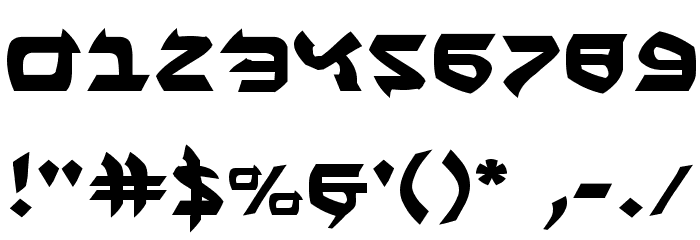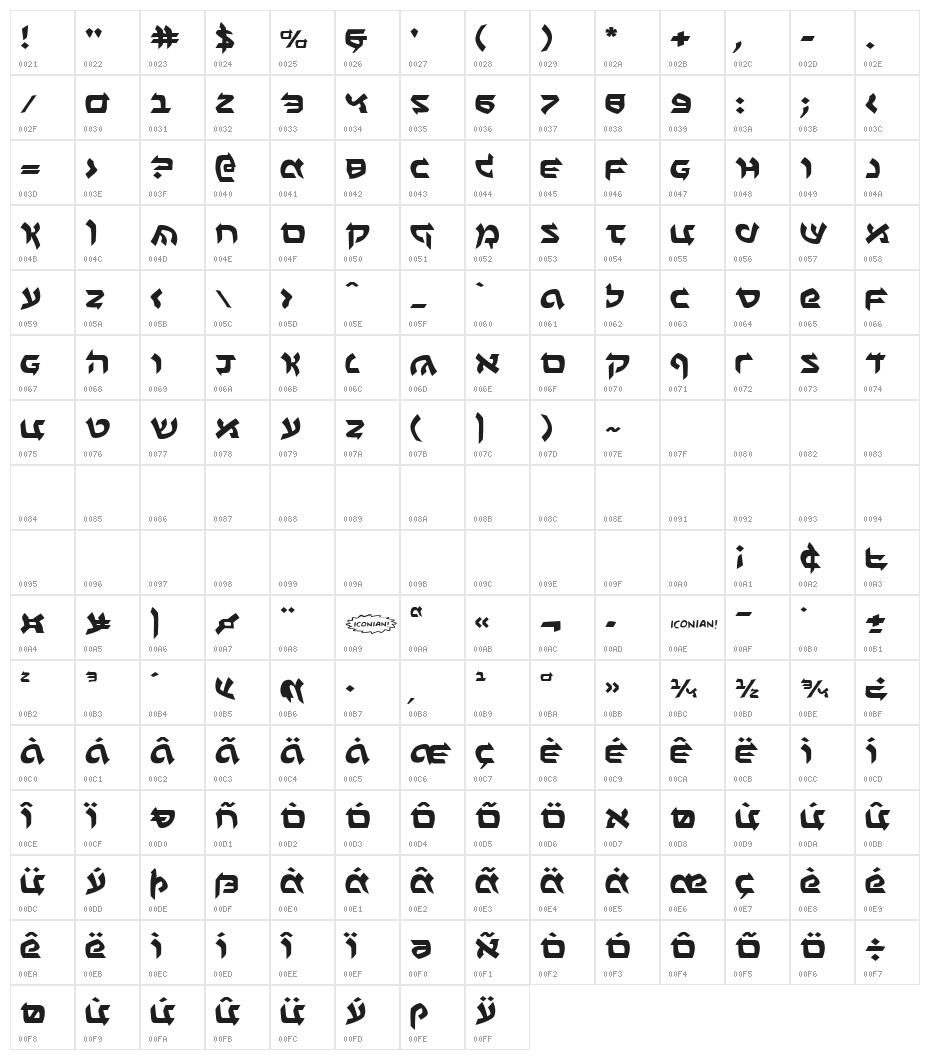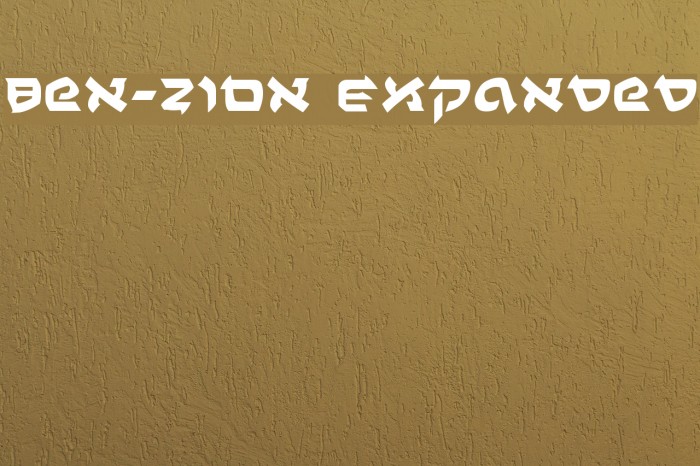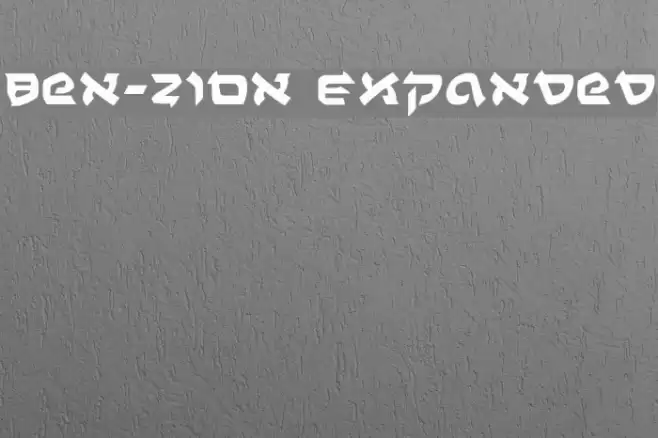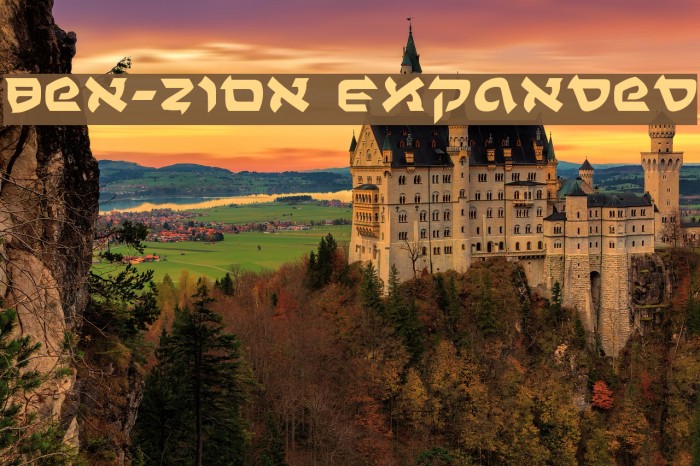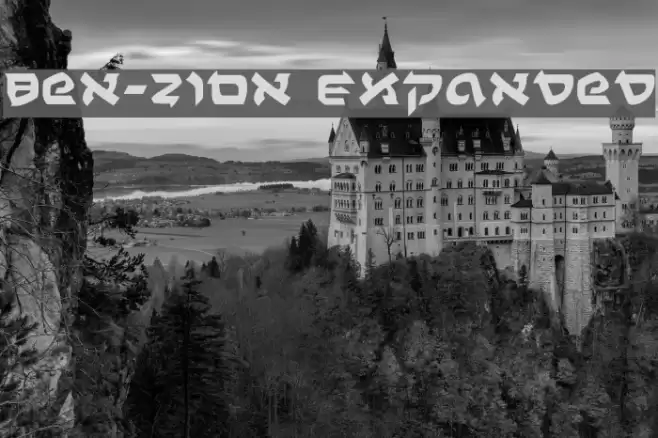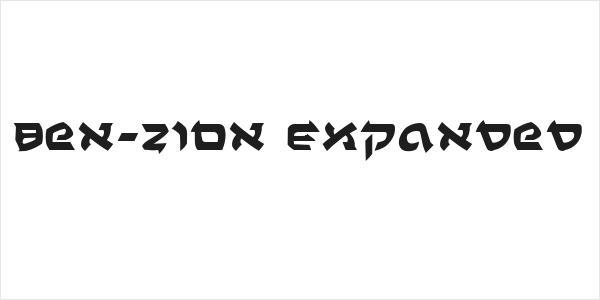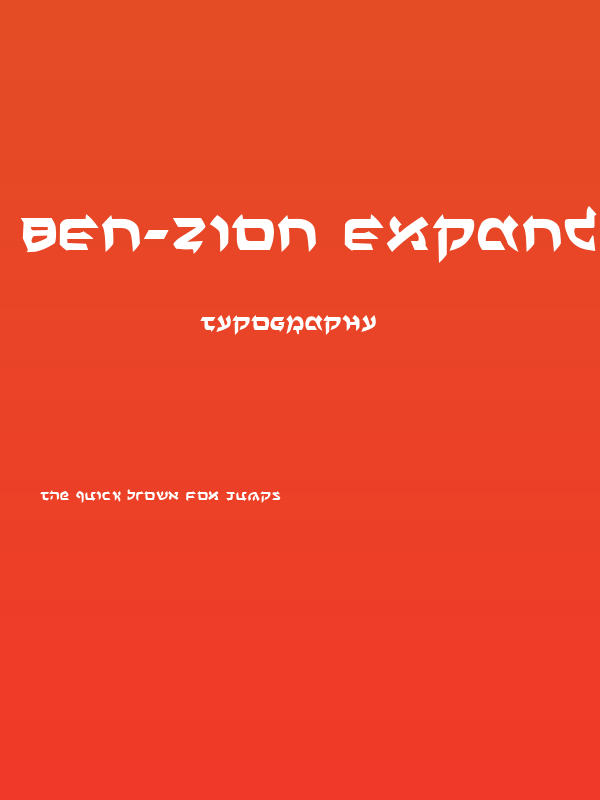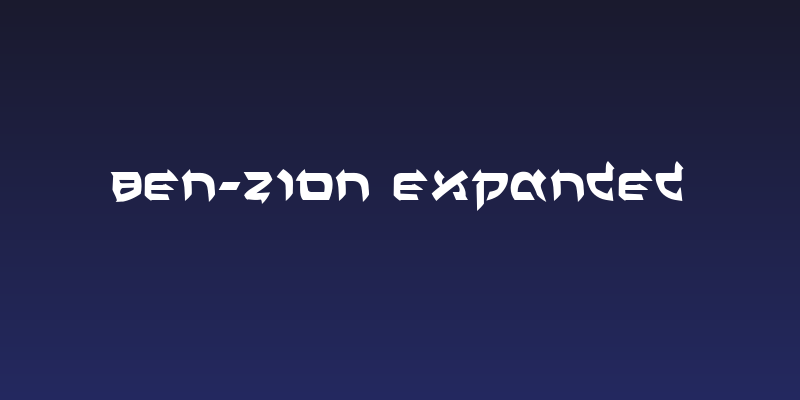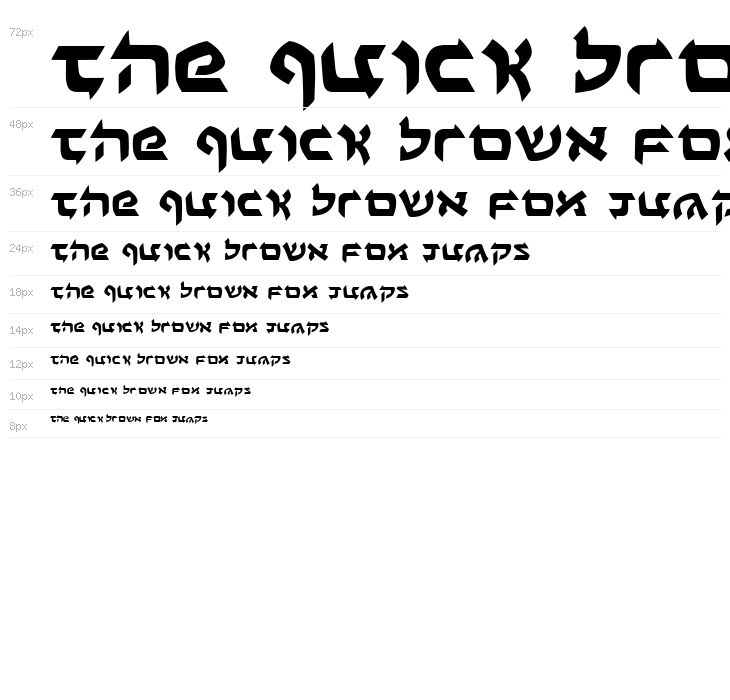
Ben-Zion Expanded Font
Ben-Zion Expanded Description
This font features a bold, geometric design with sharp angles and a futuristic aesthetic. The characters are constructed with a unique blend of straight lines and curves, creating a dynamic and eye-catching appearance. The uppercase and lowercase letters maintain a consistent style, with distinctive cuts and edges that give the font a strong presence. The numerals and special characters follow the same design principles, ensuring a cohesive look across all glyphs. This font is ideal for projects that require a modern and edgy feel, such as tech-related branding, sci-fi themes, or innovative product designs.
| Use Case | Logos, Headlines |
| Proposed Projects | Tech branding, sci-fi themes, innovative product designs. |